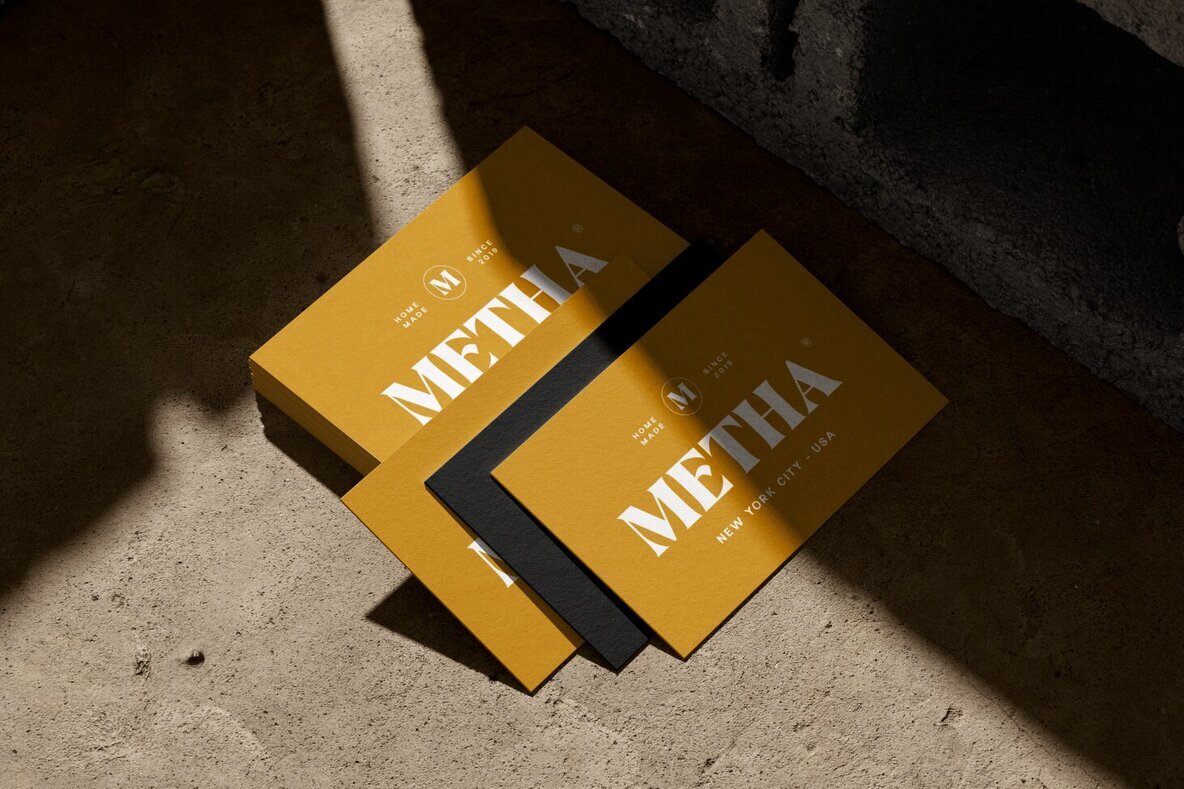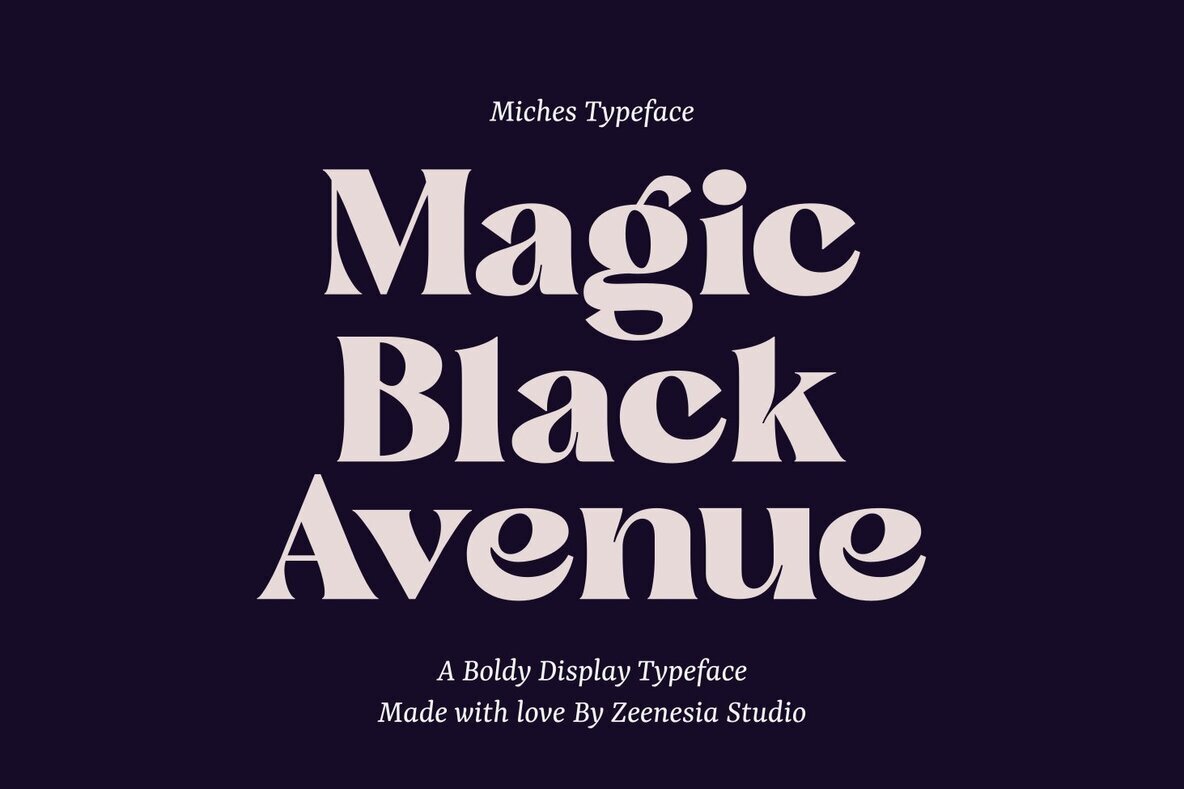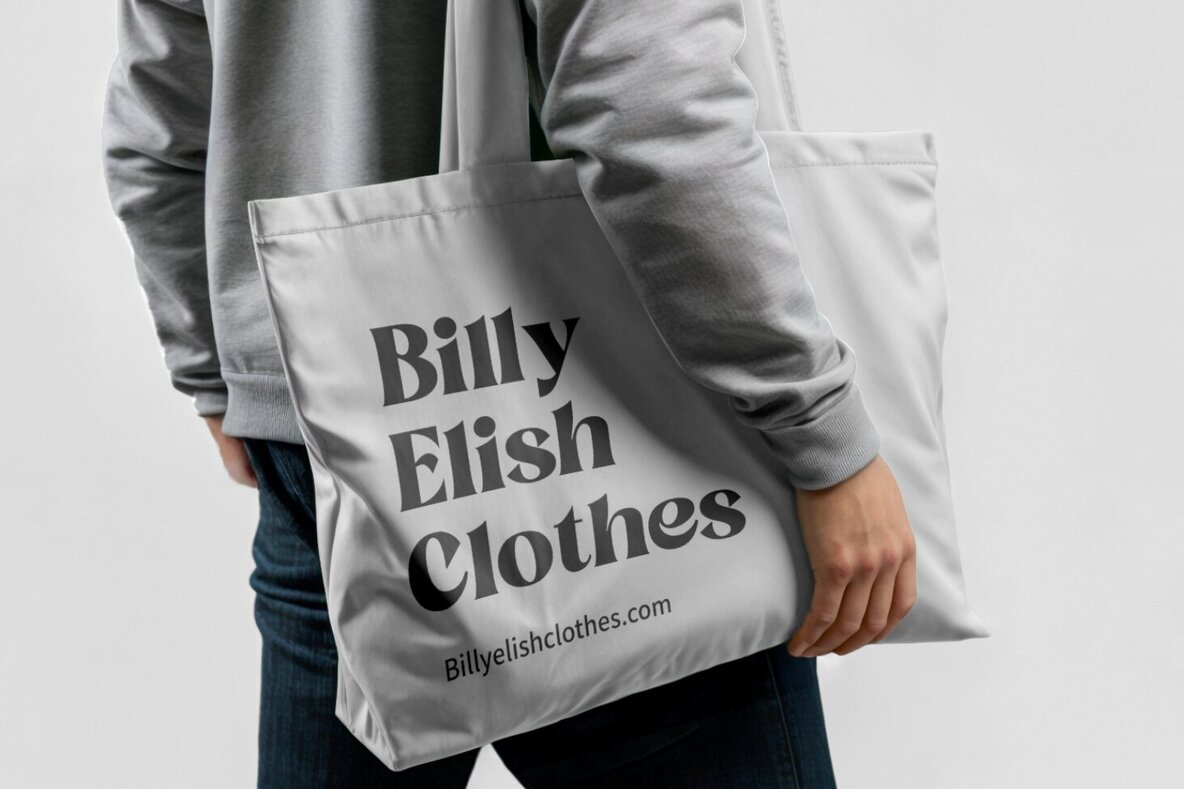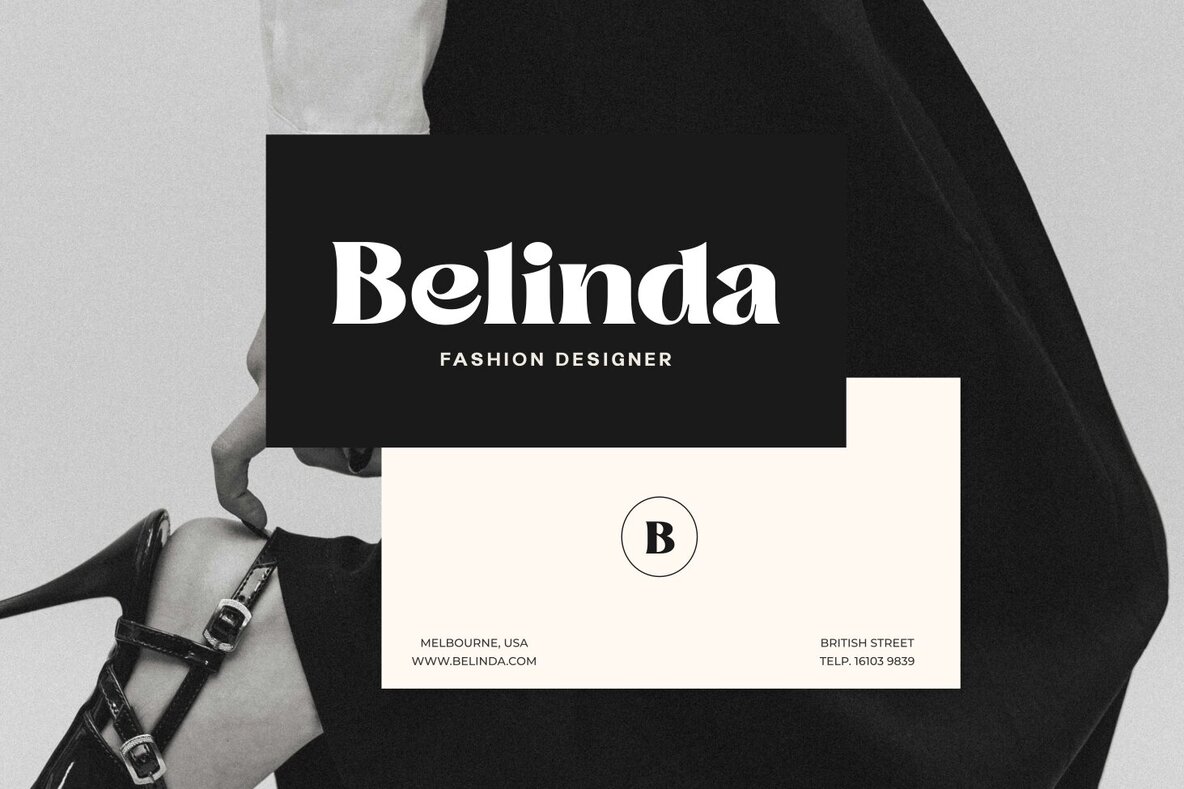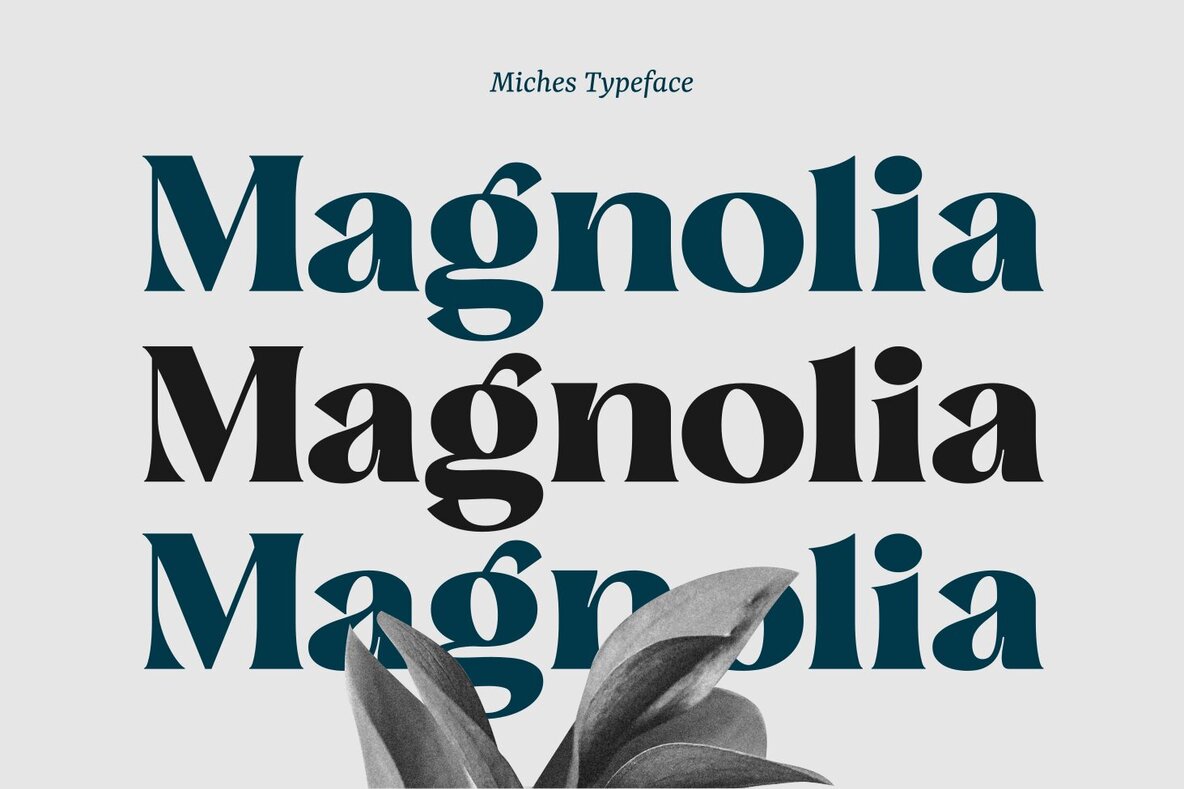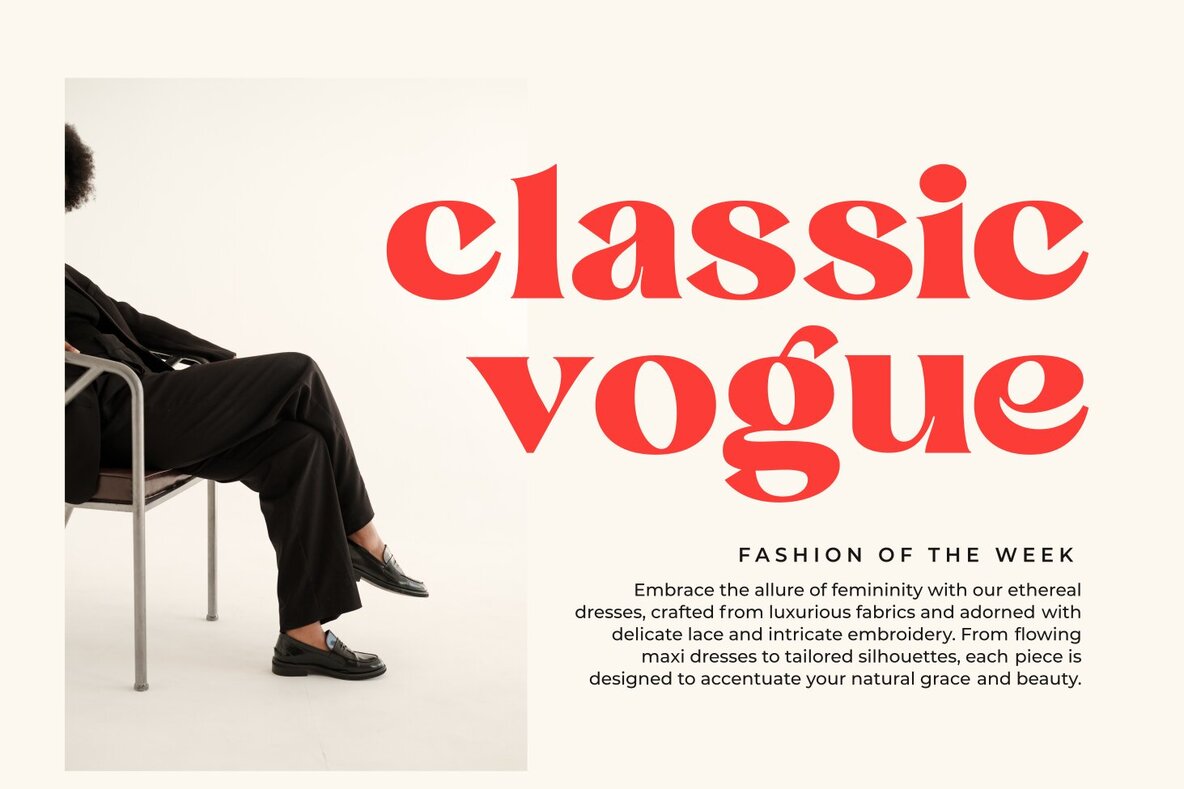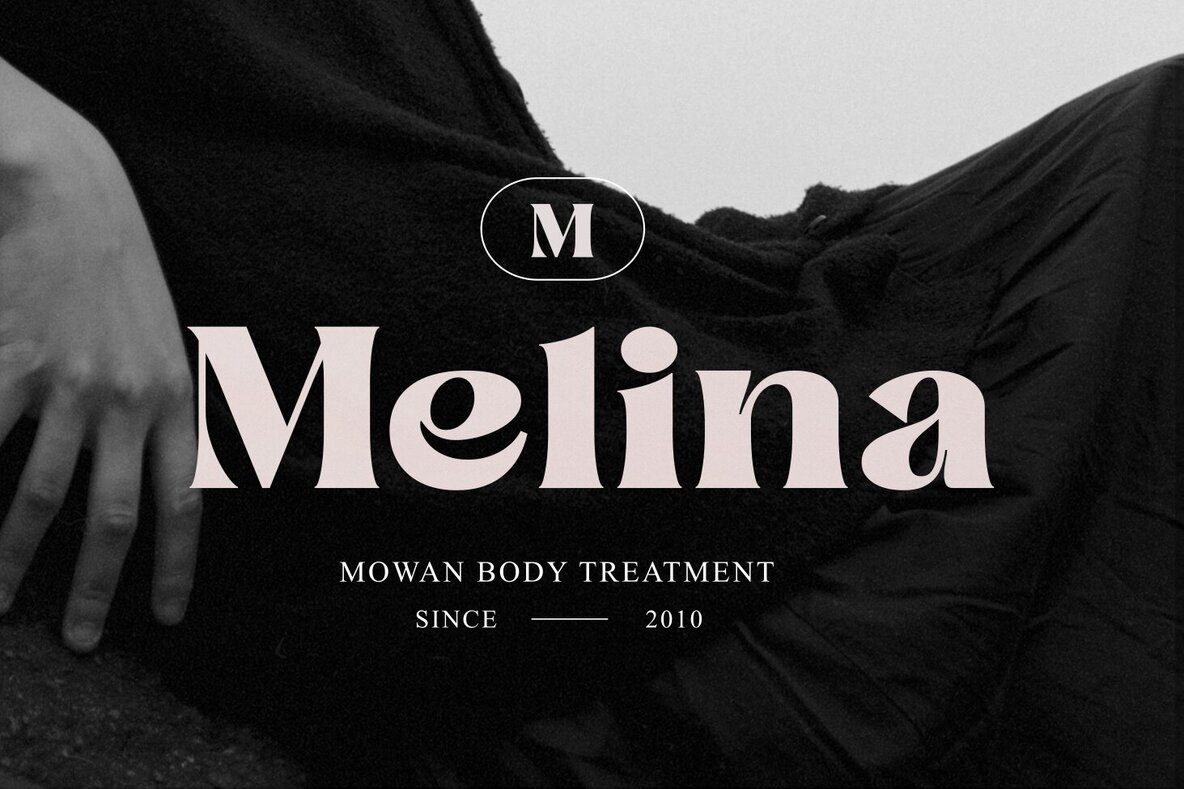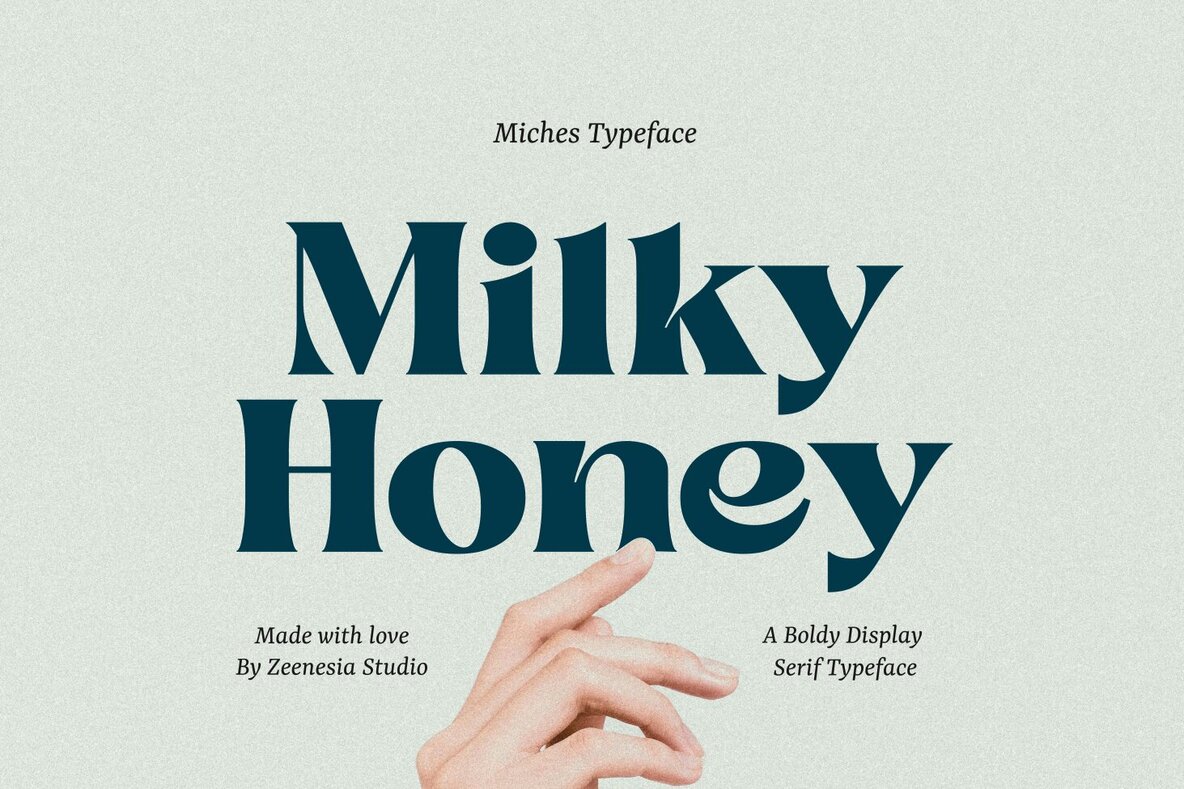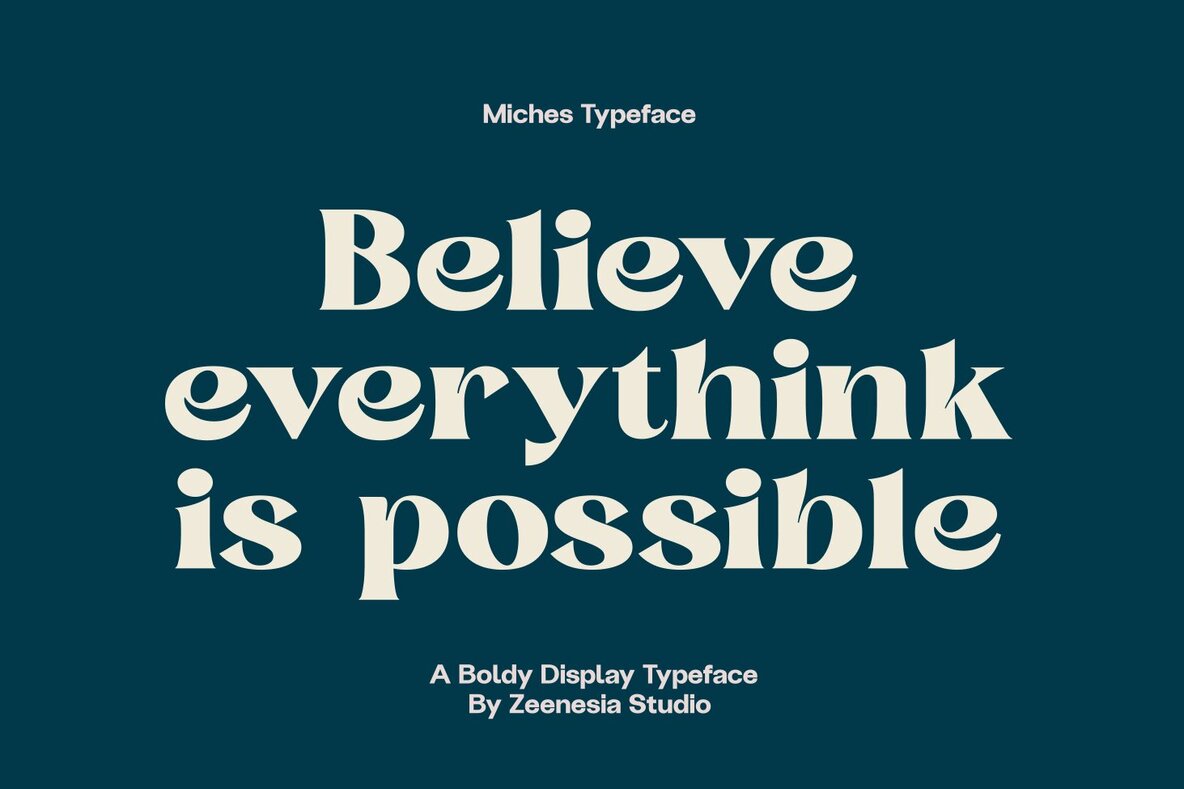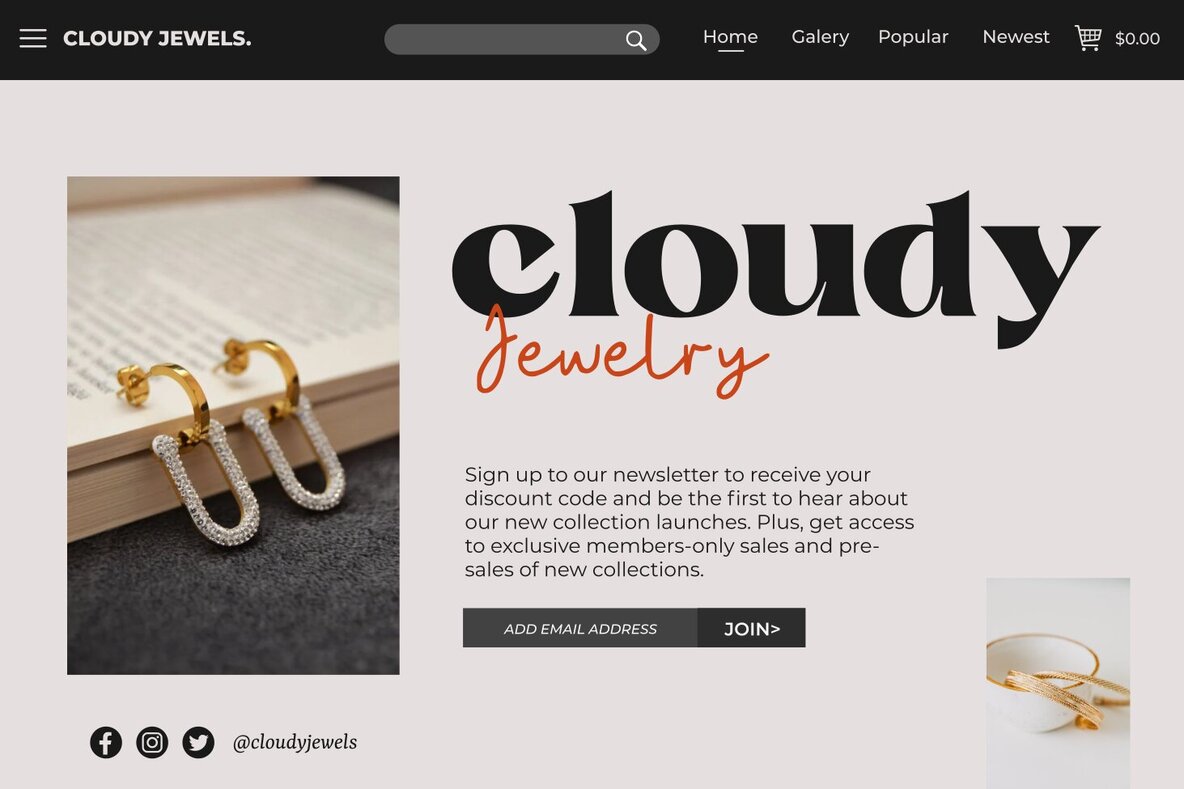
Miches Font
Miches Regular
Miches Serif Font seamlessly combines modern sophistication with vintage elegance, making it a standout choice for designers seeking to create an impactful visual statement. Featuring a robust character structure enhanced with delicate flourishes, Miches is perfectly suited for large-scale design projects. Whether you're framing striking editorials, crafting compelling logos, or enhancing website visuals, this font adapts effortlessly to a variety of design applications, offering versatility and a unique flair.
From fashion labels to trendy magazine headers, Miches provides a timeless quality that ensures your designs remain fresh and engaging. Its bold presence and clear styling make it an excellent choice for overlaying text on diverse backgrounds, adding a polished and professional finish to any project. With capabilities such as standard glyphs, multilingual support, and seamless compatibility with both PC and Mac platforms, Miches stands as a reliable and sophisticated addition to any designer's toolkit.